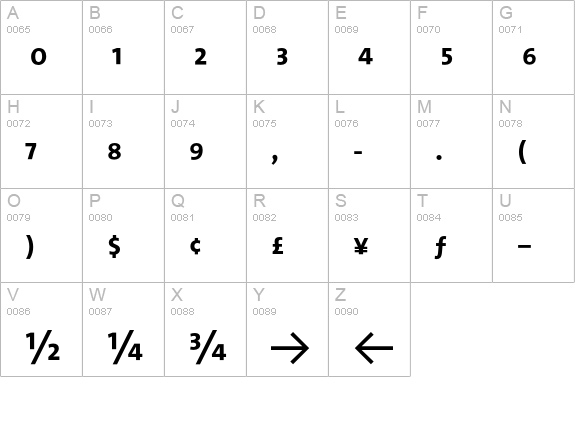
TheSans SemiBold Expert is a sub-bold, structured variant in the TheSans typeface family \xE2\x80\x94 well suited to sub-headlines and emphasised passages.
TheSans SemiBold Expert font is a versatile and modern typeface that effortlessly combines elegance with readability. Its semi-bold weight strikes the perfect balance between boldness and delicacy, making it a go-to choice for various design projects. With its clean lines and crisp edges, TheSans SemiBold Expert exudes professionalism and sophistication. Whether used for headlines, body text, or branding materials, this font adds a touch of class to any design. One of the standout features of TheSans SemiBold Expert font is its versatility. It is suitable for a wide range of applications, including print and digital media, advertising, packaging, and more. Its timeless design ensures that it remains relevant and visually appealing across various contexts. But what truly sets TheSans SemiBold Expert font apart is the fact that it is freely available to download at FontsMarket.com. This means that designers and typographers can access this high-quality typeface without any cost. The ease of accessibility allows for greater creative freedom and ensures that anyone can elevate their design projects with this exceptional font. TheSans SemiBold Expert font is a must-have for designers who value both aesthetics and functionality. Its expertly crafted letterforms and wide language support make it suitable for a global audience. With its seamless legibility and eye-catching presence, this font is sure to make a lasting impression. In conclusion, TheSans SemiBold Expert font is a versatile, modern, and free typeface that effortlessly combines elegance with readability. Its availability for download at FontsMarket.com ensures that designers can easily access this exceptional font and elevate their design projects to new heights.